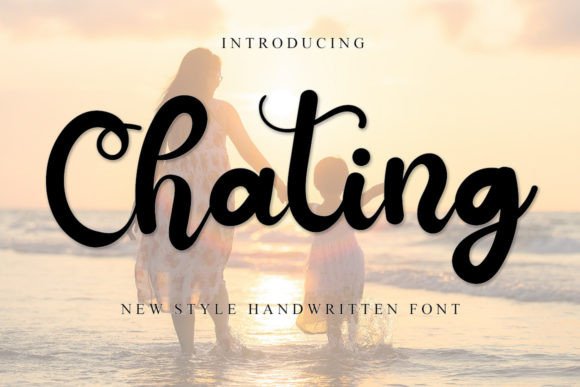
Delve into the world of Chating Font, a captivating script typeface that exudes elegance and charm. Crafted by the gifted hand of Eddygoodboy, this font is a visual masterpiece that will elevate your designs to new heights.
With its graceful curves and delicate lines, Chating Font possesses an undeniable allure. It dances across the page like a gentle breeze, evoking a sense of joy and wonder. Its strokes, as if drawn by the hand of an expert calligrapher, create a harmonious balance between sophistication and playfulness.
Explore the boundless possibilities of Chating Font. Its versatility knows no bounds, allowing you to unleash your creativity in a myriad of projects. Whether you're crafting logos, designing invitations, or creating eye-catching social media posts, Chating Font will add a touch of magic to your work.
Imagine your designs blossoming into vibrant masterpieces, capturing the attention of all who lay their eyes upon them. Chating Font's inherent beauty will transform your words into works of art, conveying your messages with grace and impact.
Indulge in the delightful dance of letters as they intertwine, forming words that resonate with emotion and meaning. Chating Font's charm lies in its ability to infuse your designs with a sense of joy and whimsy. It's a font that speaks to the heart, leaving an indelible mark on the minds of your audience.
With Chating Font as your creative companion, you'll embark on a journey of design excellence. Embrace the power of this extraordinary typeface and watch as your ideas come to life, captivating and enchanting all who encounter them.